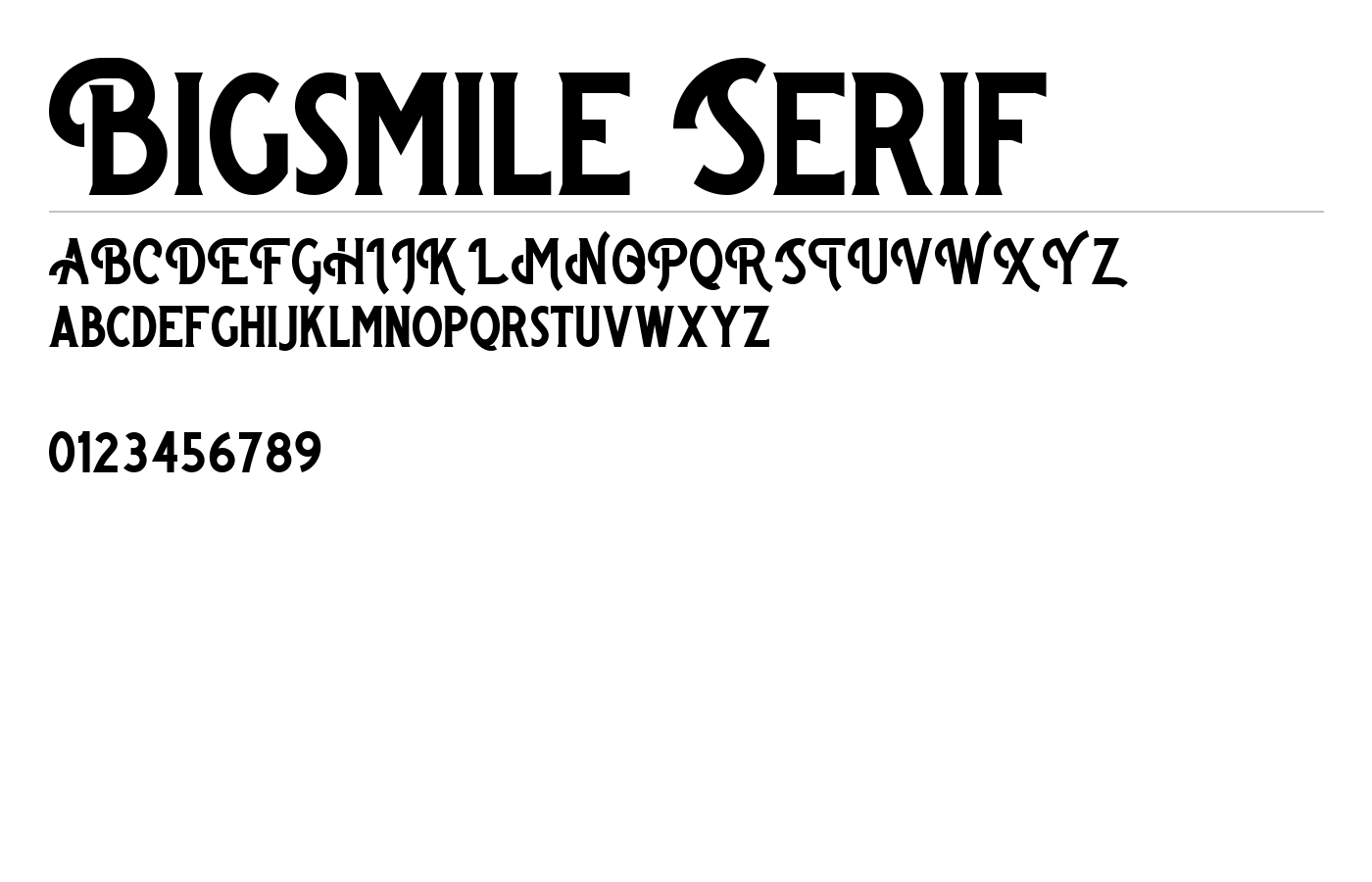
Bigsmile Serif is a bold, decorative serif font with a playful and vintage-inspired style. Its high contrast strokes, unique curved terminals, and lively letterforms give it a distinctive personality, making it ideal for eye-catching headlines, logos, and creative branding. This font works well where a touch of character and charm is needed to stand out with a confident yet friendly tone.
Bigsmile Serif Font
About Bigsmile Serif Font